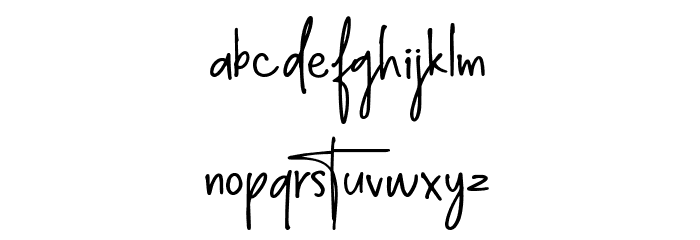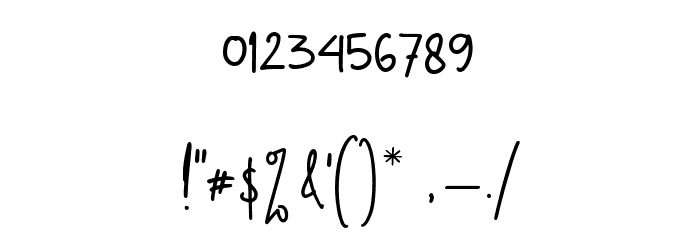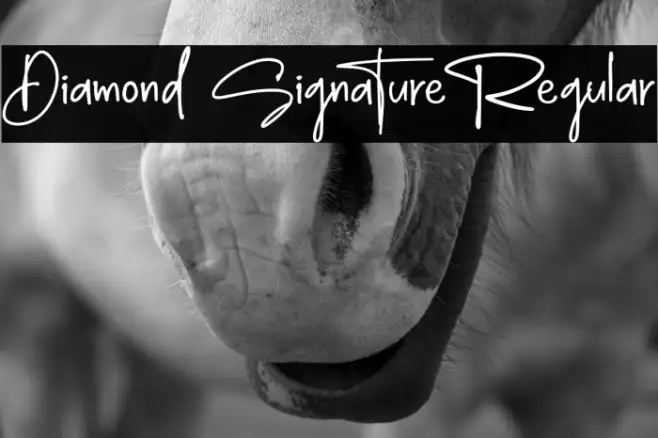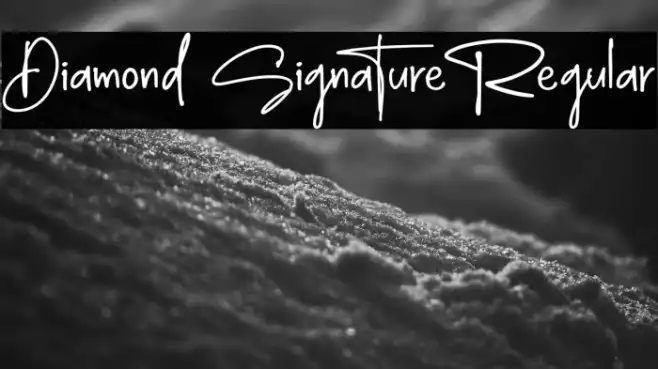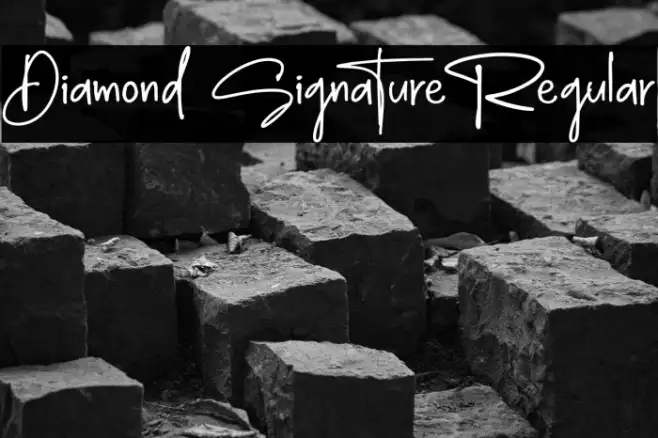
Diamond Signature Regular Font
This font features a distinctive handwritten style with a flowing, cursive appearance. The uppercase letters are bold and expressive, with unique flourishes and loops that give them a dynamic and artistic feel. The lowercase letters maintain a consistent fluidity, complementing the uppercase with their elegant curves. Numbers are clear and legible, while special characters are creatively designed to match the overall aesthetic. The font's playful yet sophisticated look makes it ideal for projects that require a personal touch.
A dynamic handwritten font with expressive flourishes and elegant curves.
- Font: Diamond Signature Regular
- Proposed Projects: Ideal for personal branding, invitations, greeting cards, and artistic projects.
- Use Case: Logos, Invitations, Greeting Cards